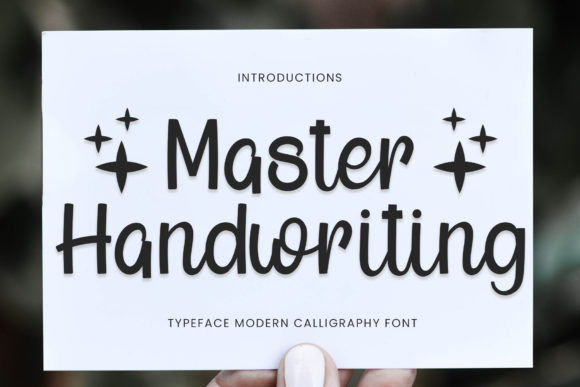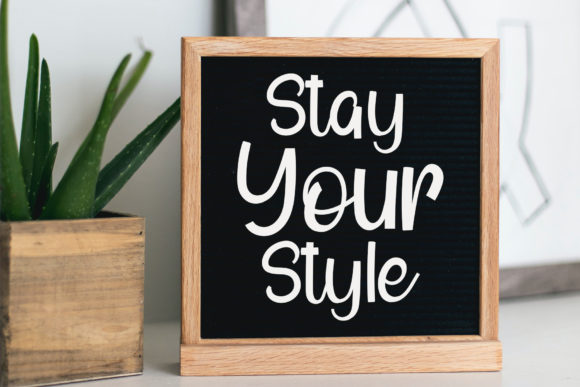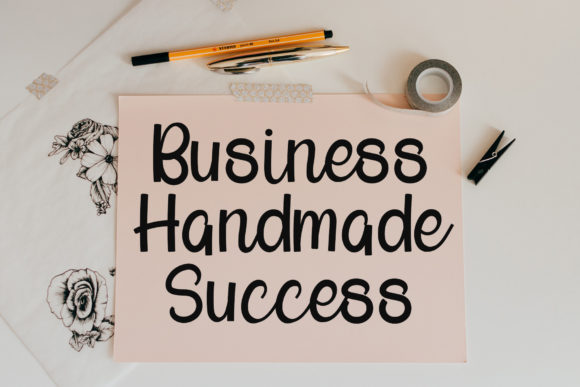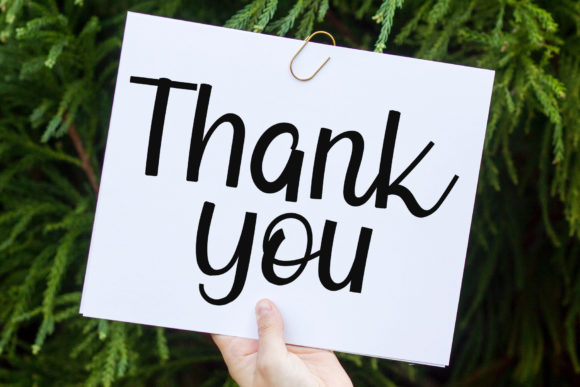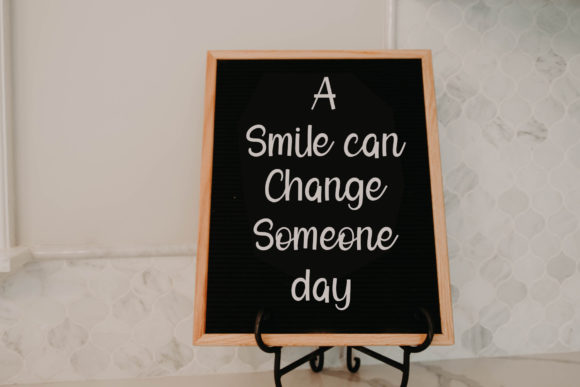
Master Handwriting Font
About Master Handwriting Font
Master Handwriting emerges as a font of undeniable charm, embodying sweetness, romance, and beauty through its elegant script design. Each letter is meticulously crafted, boasting exquisite curves that contribute to the font’s overall grace. This script font is a testament to refined aesthetics and serves as a delightful addition to any creative project, infusing it with an enchanting touch that is sure to captivate.
The romantic allure of Master Handwriting is particularly evident in the graceful lines and curves that define every letter. The thoughtful craftsmanship behind this font enhances its beauty, making it an ideal choice for projects that demand a touch of sophistication and romance. Whether used in invitations, love letters, or any other design endeavor, Master Handwriting effortlessly elevates the visual appeal, leaving a lasting impression on anyone who beholds it.
As you confidently integrate Master Handwriting into your projects, you’ll undoubtedly witness the transformative power it holds. The font’s expressive qualities shine through, creating results that are not only aesthetically pleasing but also evoke a sense of warmth and emotion. Whether you’re working on wedding invitations, romantic quotes, or any other creative venture, Master Handwriting lends an air of timeless elegance that is sure to be cherished.
This beautiful script font becomes a valuable asset in expressing creativity and conveying emotions with its distinctive features. It serves as a visual storyteller, adding a layer of artistry to your projects that resonates with those who experience it. Master Handwriting stands as a testament to the belief that in the world of design, the right font can elevate a creation from ordinary to extraordinary, leaving you with results that you’ll genuinely love. Allow Master Handwriting to be the brushstroke of romance and beauty in your design palette, creating a lasting impression that lingers in the hearts of those who engage with your work.